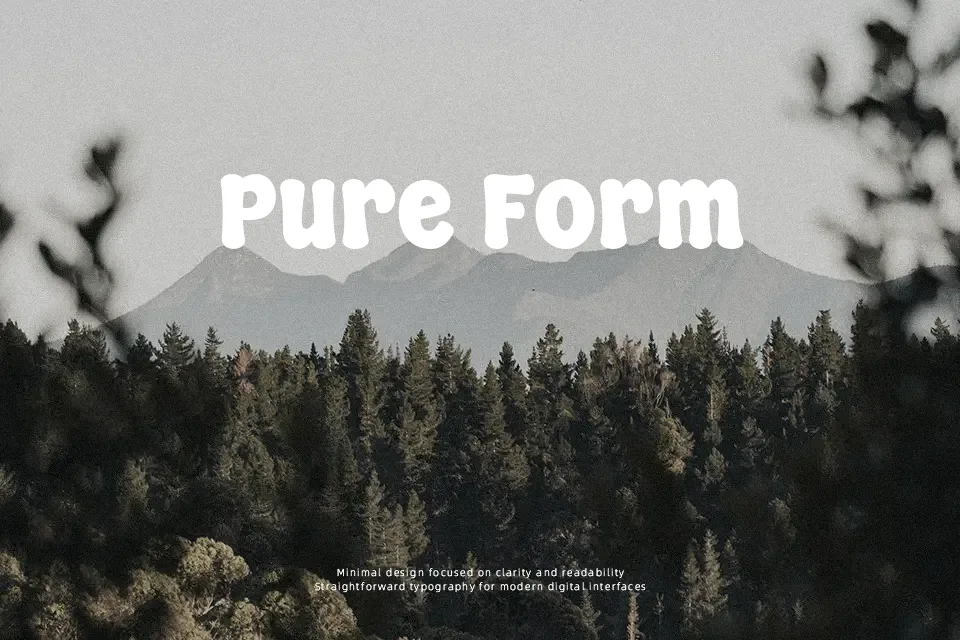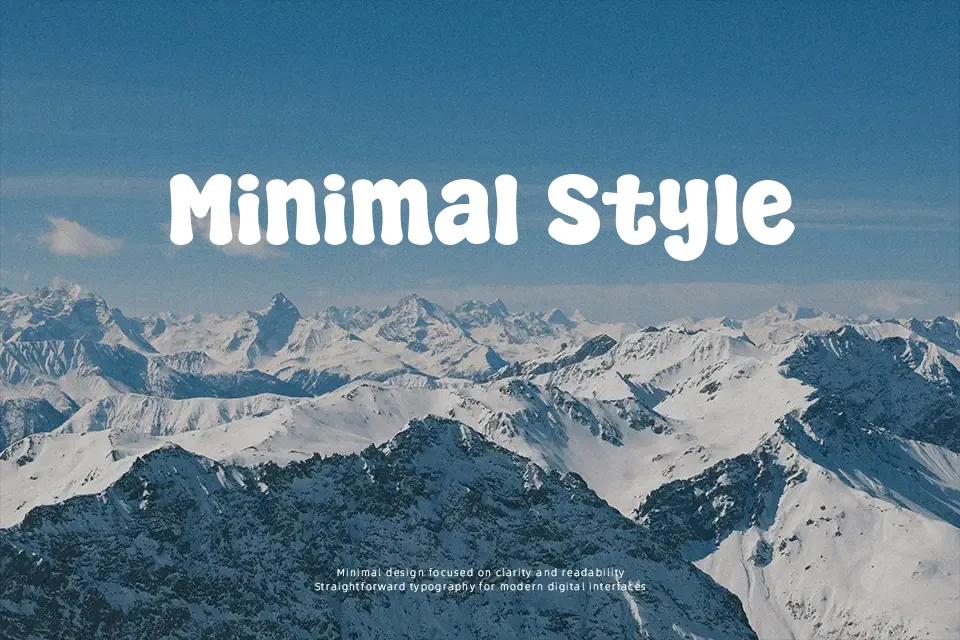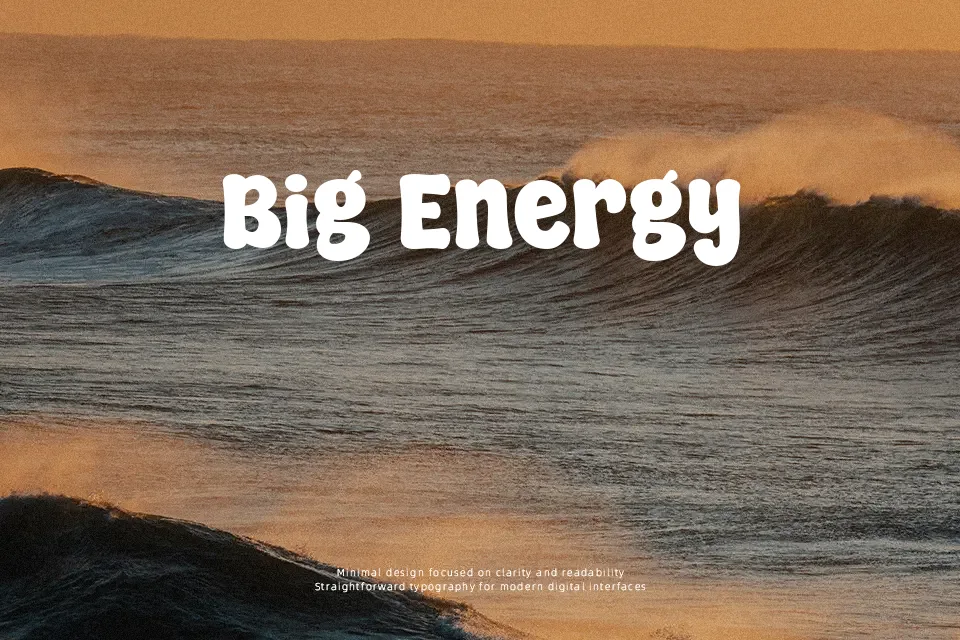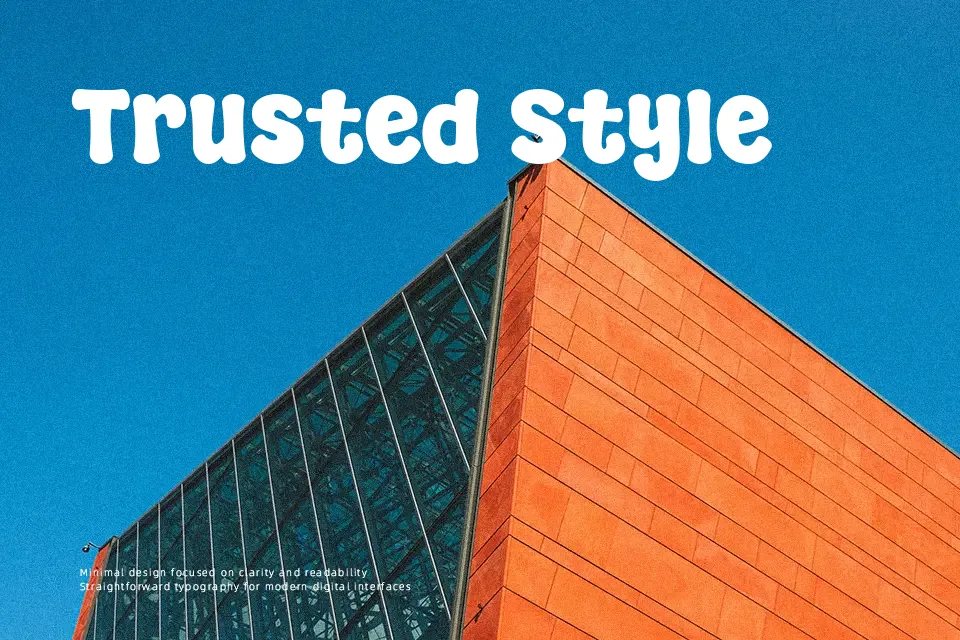
Super Creamy Font
Super Creamy Font adopts a visual-first approach characterized by swollen letterforms, diminutive inner counters, and consistently plump proportions across its alphabet. Each character features fluid outer curves and blunt rounded ends that eliminate sharp corners, producing an unmistakably soft silhouette in headline compositions. Balanced tracking keeps adjacent glyphs close without overlapping, maintaining clear differentiation across large-format titles and sticker artwork. The typeface performs reliably in brief display contexts such as beverage labels, arcade signage, and apparel graphics. However, the sheer density of the strokes and reduced counter spaces impair readability at smaller point scales, restricting the font from being used in body paragraphs.
Best For: snack food packaging, cartoon poster titles, children merchandise, arcade game signage
Not Ideal For: long body copy, dense editorial columns, mobile interface text, formal legal documents